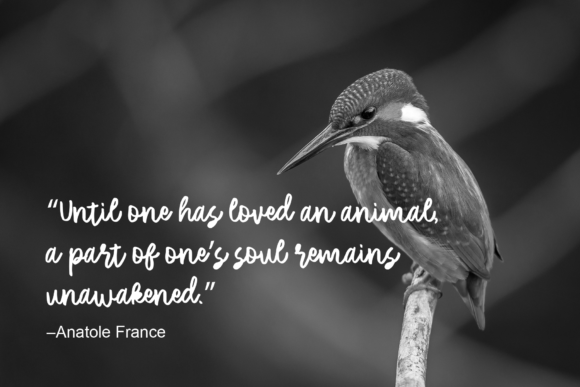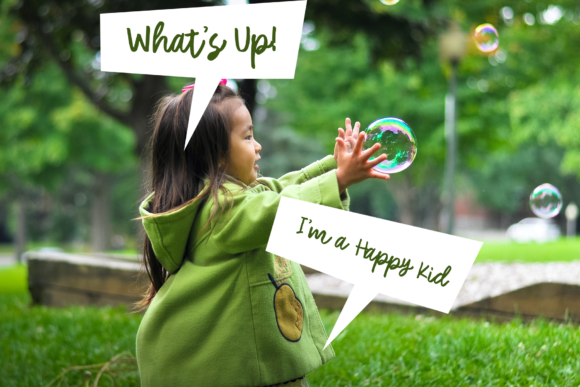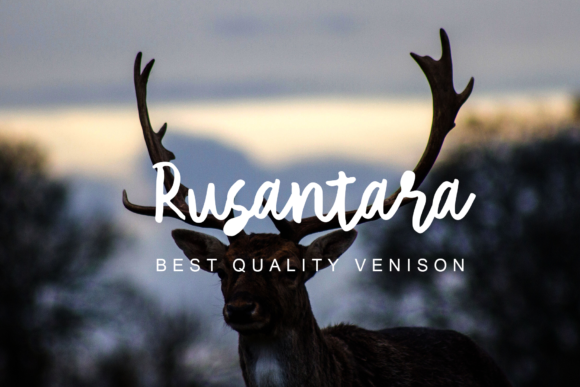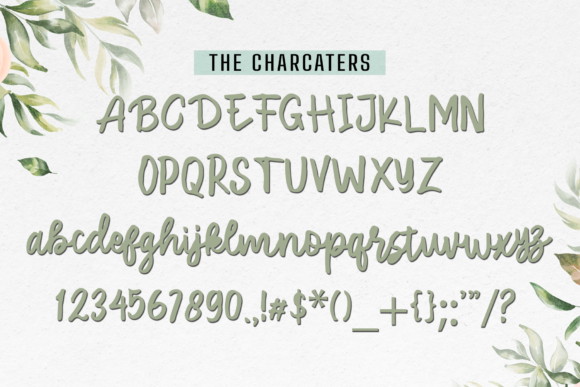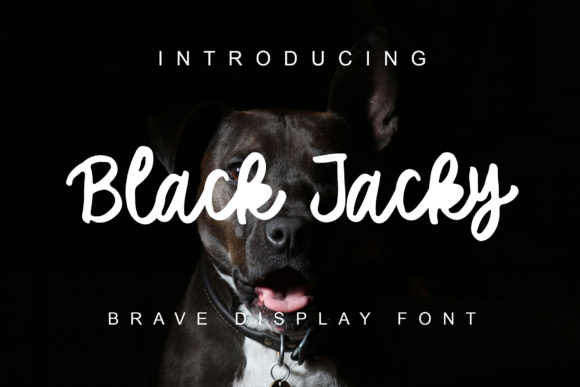
The Quest for the Perfect Font: How Black Jacky Stole My Heart
I still remember the design project that led me to discover Black Jacky Font. I was working on a logo for a pet grooming business, and I was on a mission to find the perfect font that would capture the playful and affectionate personality of the brand. Hours of scrolling through font libraries and trying out different combinations had me feeling frustrated and stuck. That’s when I stumbled upon Black Jacky, and it was love at first sight! 😍
An Honest Review of Black Jacky Font
So, what makes Black Jacky so special? Let’s dive into the good stuff and a few quirks I’ve noticed.
What I Love About Black Jacky ✨
- Unique and funny character that’s sure to grab attention
- Perfect for animal lovers, with a cute and playful vibe
- Versatile and can be used for various design projects, such as logos, posters, quotes, cards, and more
- Easy to read, even in larger or smaller sizes
- Works well with both digital and print designs
- May not be the best fit for very formal or professional designs
- Some characters may not work well in all languages or scripts
- Limited availability of stylistic alternates or glyphs (but still a great font!) ⚠️
The Story Behind Black Jacky Font
Black Jacky was created with love and care by a talented font designer who wanted to bring a smile to people’s faces. The designer, inspired by their own pet’s quirky personality, aimed to create a font that would capture the fun and playfulness of animals. And so, Black Jacky was born! 🐾
Q: Is Black Jacky suitable for professional designs?
A: While Black Jacky is a great font, it might not be the best fit for very formal or professional designs. However, it can work well for creative industries like pet care, fashion, or entertainment.